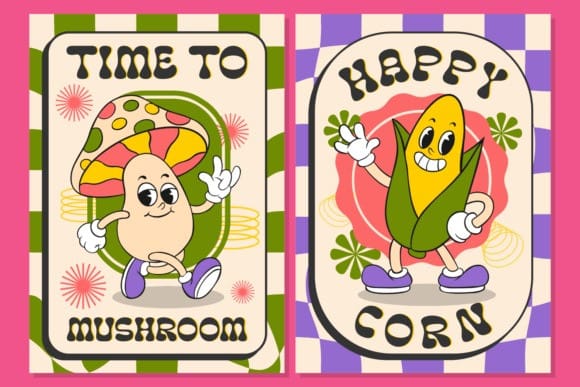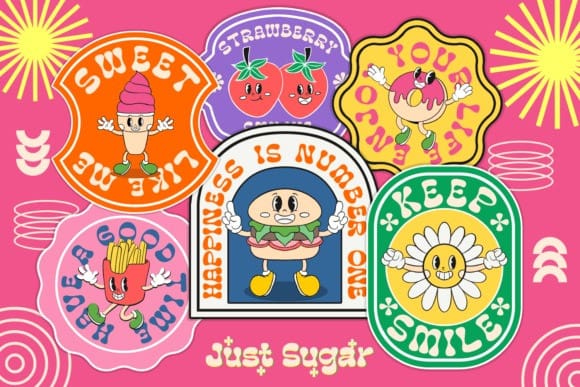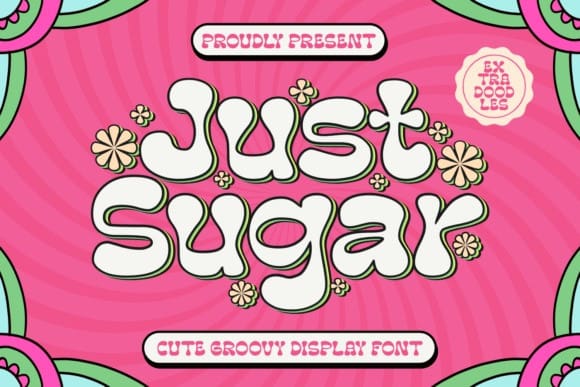
Just Sugar Font
Just Sugar Font is here to give you all the groovy vibes you need for the best hippie designs. Masterfully designed to become a true favorite, this font has the potential to bring each of your creative ideas to the highest level!